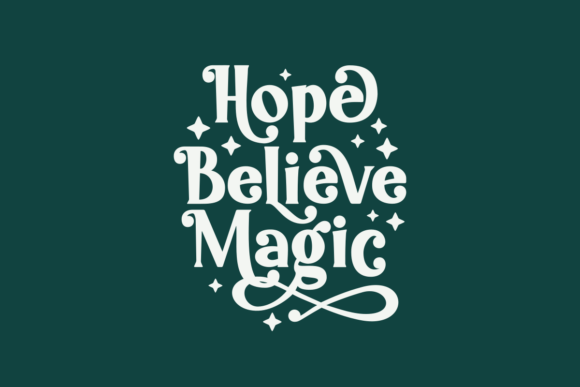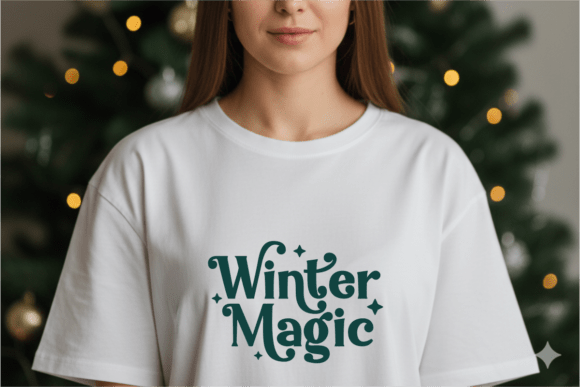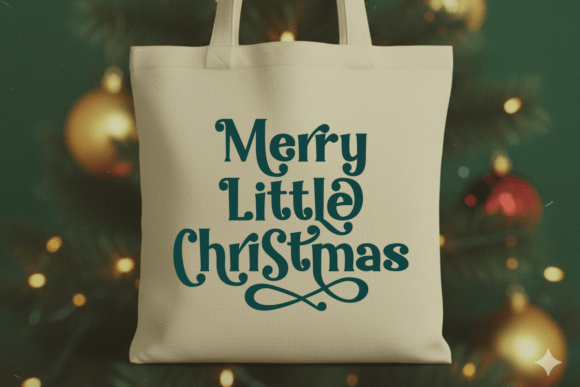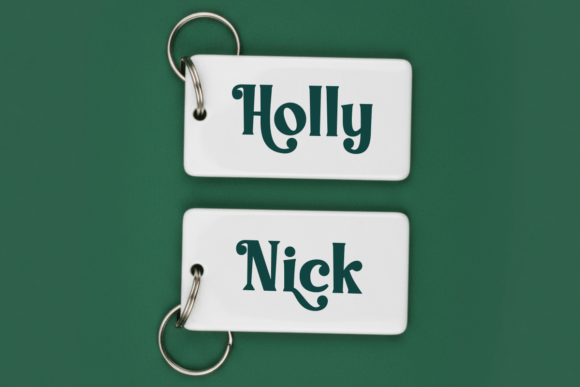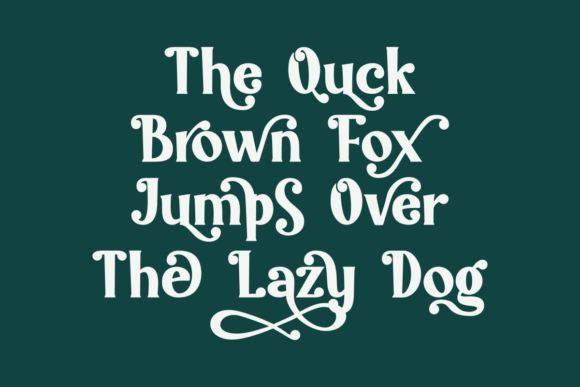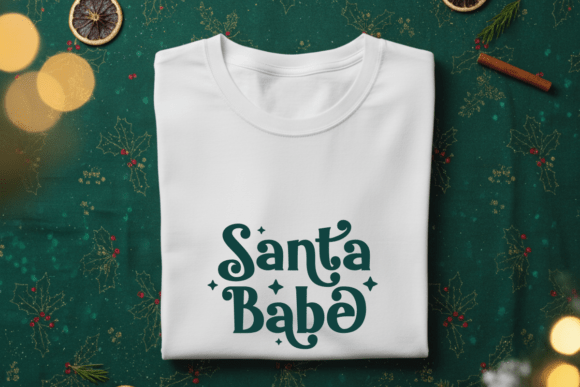
Get into the Holiday Spirit with the Perfect Font
As the holiday season approaches, designers are often faced with the task of creating festive and engaging projects that capture the magic of Christmas. Have you ever been brainstorming ideas for a holiday-themed campaign, only to be stuck on the perfect font to bring it all together? That’s where the Holidays Christmas Font comes in – a bold, flowing, retro-inspired handcrafted serif style that’s sure to add some cheer to your designs.
With its rich alternate characters, subtle artistic ligatures, and versatility, the Holidays Christmas Font is a valuable asset for any designer looking to create unique and captivating typography. Whether you’re working on t-shirt designs, greeting cards, or product packaging, this font is sure to bring a touch of holiday magic to your projects.
Holidays Christmas Font Key Features
- Unique Characteristics: The Holidays Christmas Font features intricate designs, ornaments, and festive elements, making it perfect for holiday-themed designs, cards, and invitations.
Holidays Christmas Font Review
I recently had the chance to work with the Holidays Christmas Font, and I must say it’s a mixed bag. Here are my thoughts:
- The font’s playful and festive vibe is perfect for holiday-themed projects. It’s sure to get people in the mood for the season!
- The font is well-suited for use in titles and headings, where it can really shine and grab attention.
- The font comes in a variety of weights and styles, making it easy to mix and match to create a cohesive look.
- The font can feel a bit too kitschy or over-the-top for some projects. It’s not for everyone, that’s for sure.
- The font’s spacing and kerning can be a bit wonky at times, which can make it difficult to read in certain situations.
- The font is not as versatile as some other fonts I’ve worked with, and it may not be suitable for use in all types of projects.
Overall, I think the Holidays Christmas Font is a fun and festive addition to any holiday-themed project. While it may not be the most versatile font out there, it’s perfect for those looking to add a bit of cheer to their designs. Just be sure to use it sparingly and in the right context to get the most out of it!
The Holidays Christmas Font is ideal for:
- Christmas and winter-themed designs.
- Holiday greeting cards and invitations.
- Seasonal advertisements and marketing materials.
- Personalized gift tags and labels.